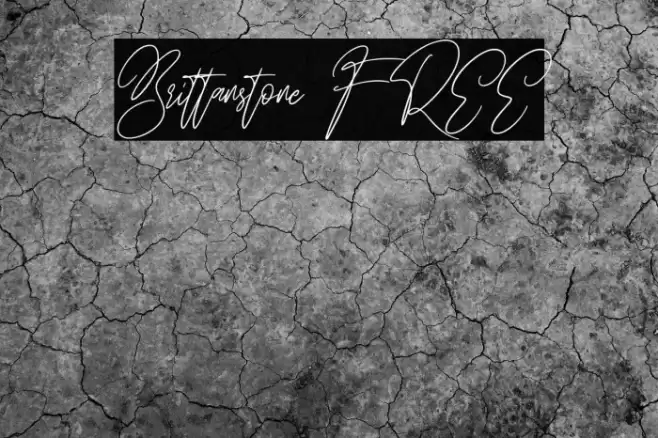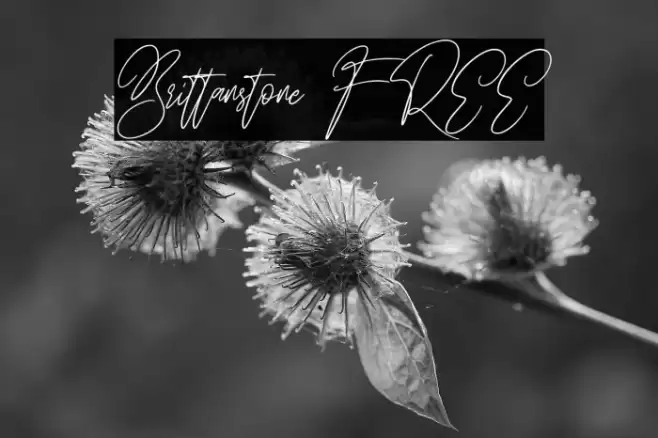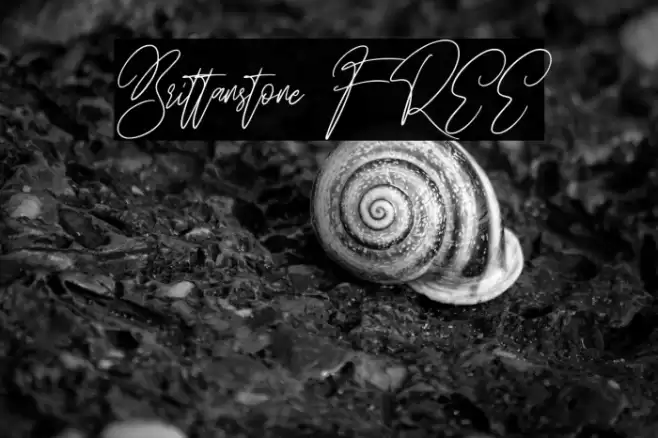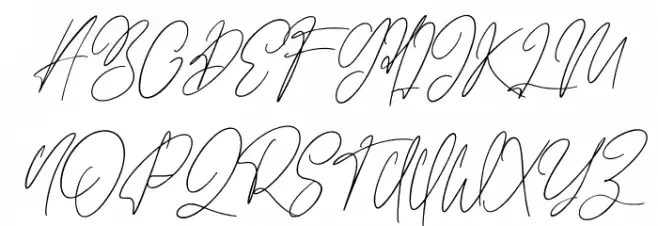
Brittanstone FREE Font
Brittanstone FREE Description
This font exudes elegance and sophistication with its flowing, cursive script style. The letters are intricately designed with smooth curves and delicate lines, giving it a refined and graceful appearance. The uppercase letters are particularly elaborate, featuring extended loops and flourishes that add a touch of drama and flair. The lowercase letters maintain a consistent style, with gentle slants and subtle connections between characters, creating a harmonious and fluid text. The overall look is both classic and modern, making it versatile for various design needs.
An elegant cursive script font with flowing lines and intricate details from Regular fonts.
- Proposed Projects: Ideal for wedding invitations, elegant branding, personal stationery, and luxury product packaging.
- Overall Style: Elegant, Classic
- Use Case: Logos, Invitations, Branding